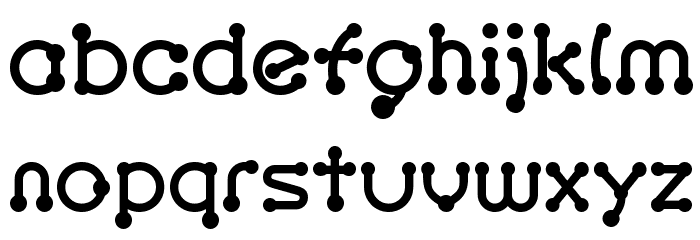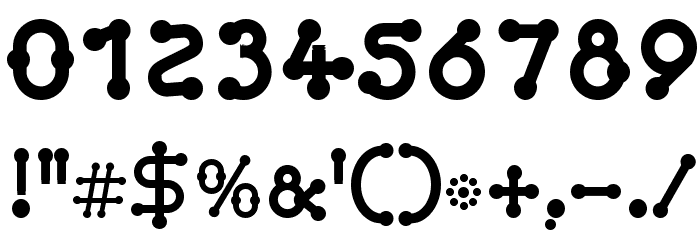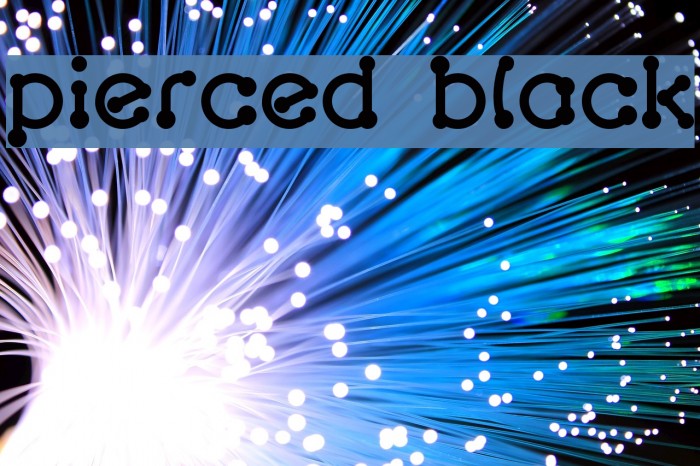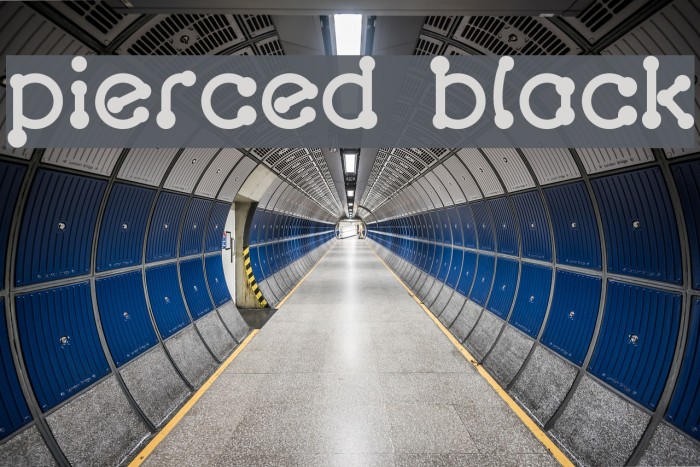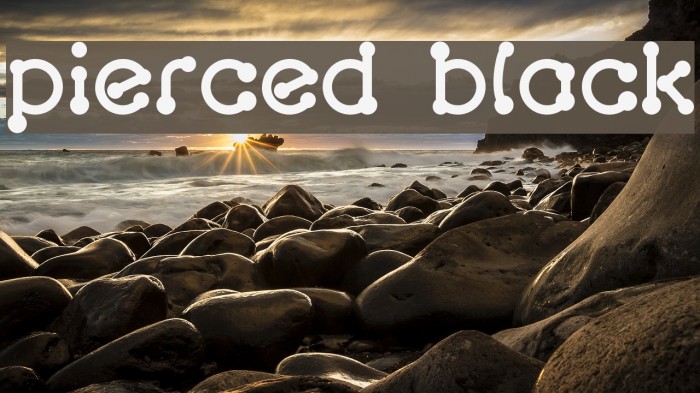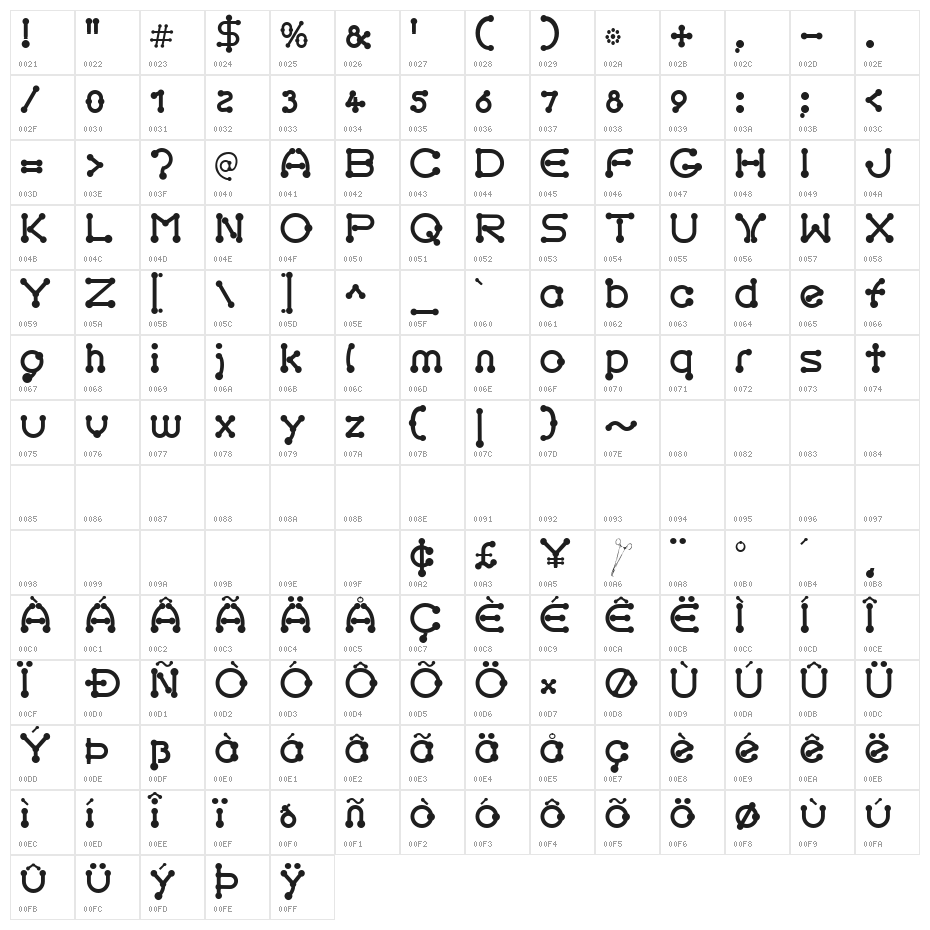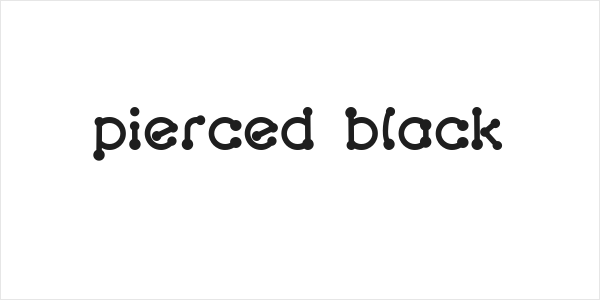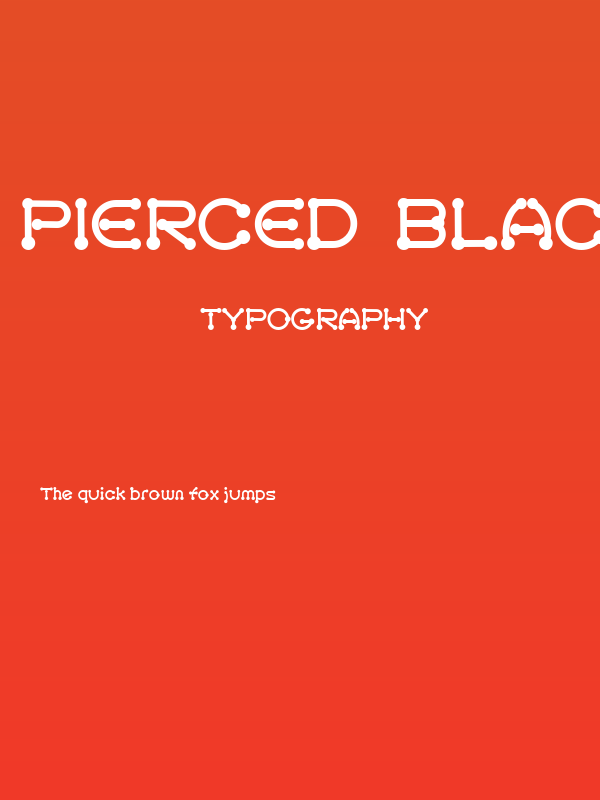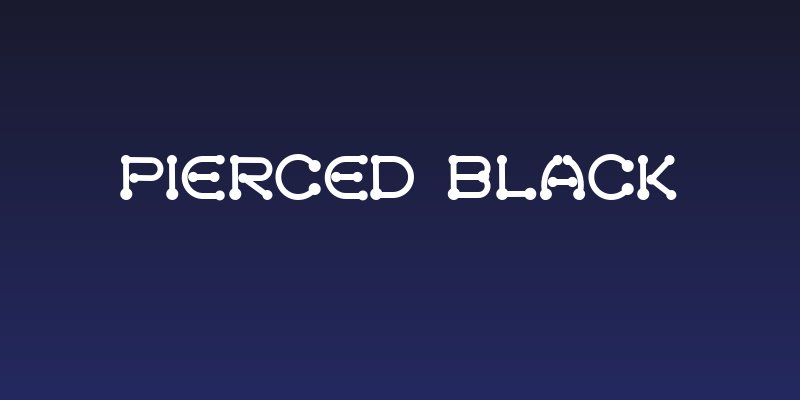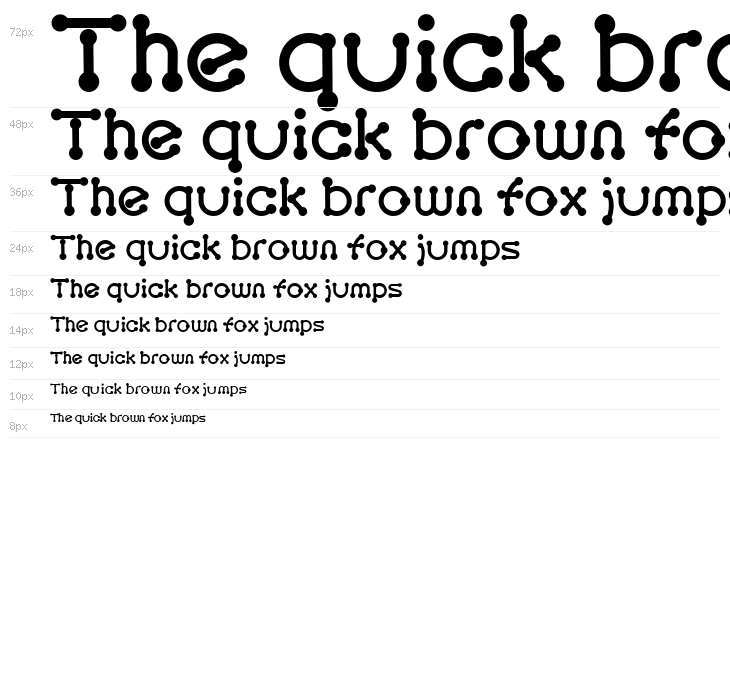
pierced black Font
This font features a unique and playful design with circular, pierced elements at the ends of each stroke, creating a bold and eye-catching appearance. The characters are rounded and have a consistent thickness, giving them a uniform look. The font's distinct style is both modern and decorative, making it suitable for creative and unconventional projects. Its boldness and unique character shapes make it stand out, while the pierced elements add a touch of whimsy and fun.
A bold, playful font with pierced, rounded elements and consistent thickness.
- Proposed Projects: Ideal for creative projects such as posters, logos, and branding materials that require a bold and unique visual impact.
- Overall Style: Modern, Decorative